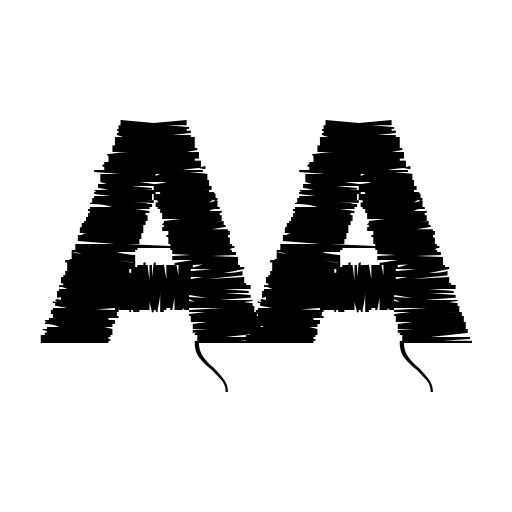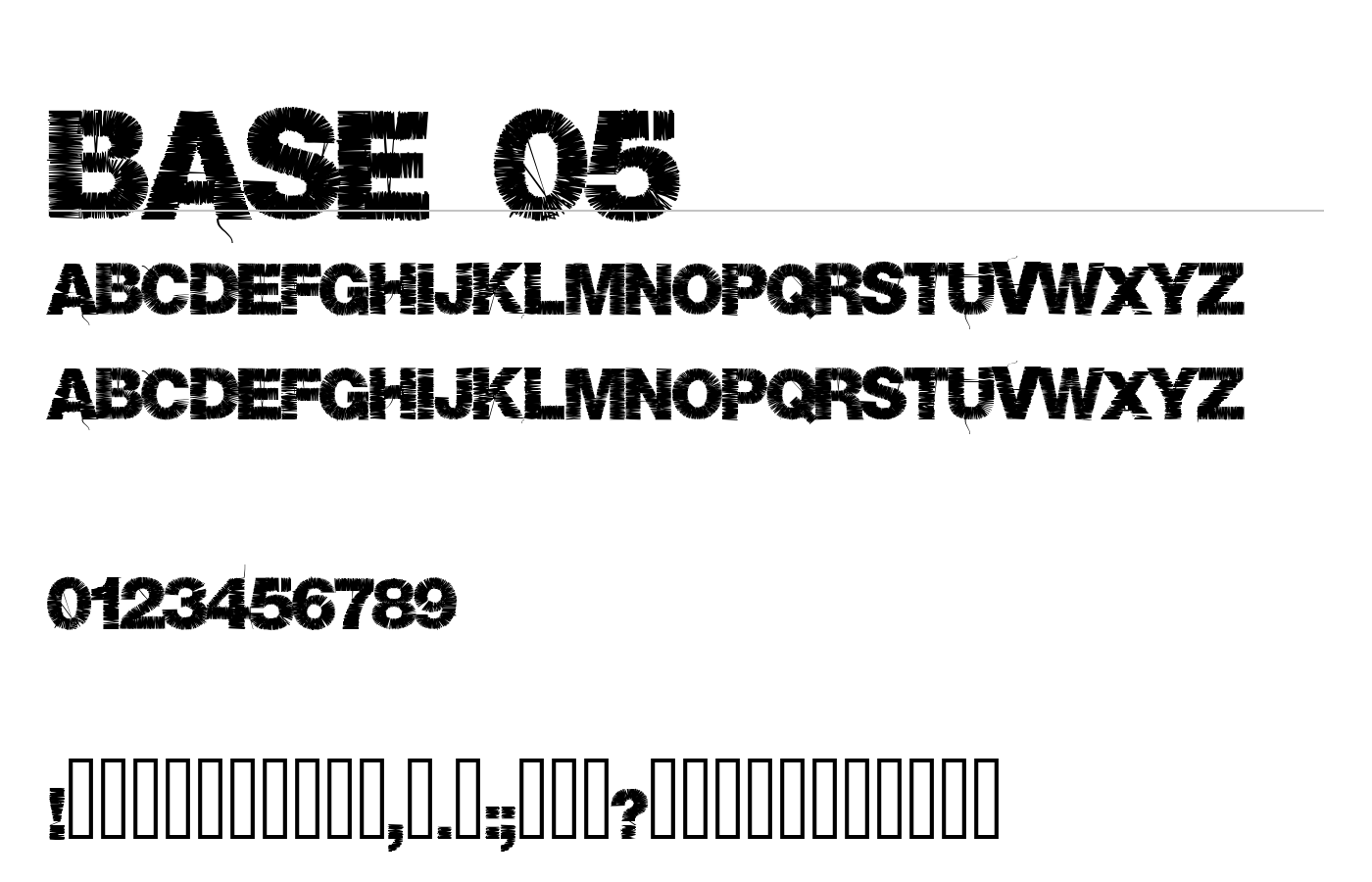
Base 05 is a bold, uppercase sans serif font with a distressed, textured design that gives it a rough, edgy character. Its thick strokes and fragmented details create a striking visual impact, making it ideal for attention-grabbing headlines, urban branding, and creative posters where a strong, dynamic personality is desired. This font conveys a modern, rebellious vibe suited for projects that want to stand out with a gritty, unconventional style.
Base 05 Font
About Base 05 Font